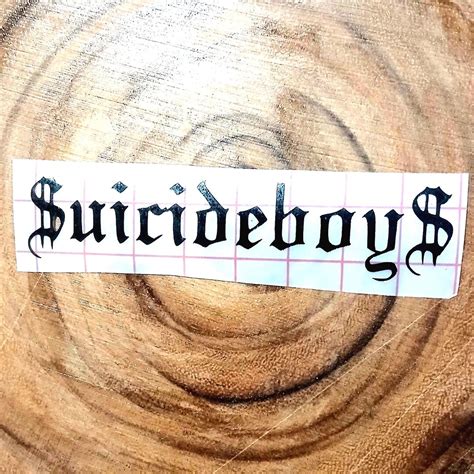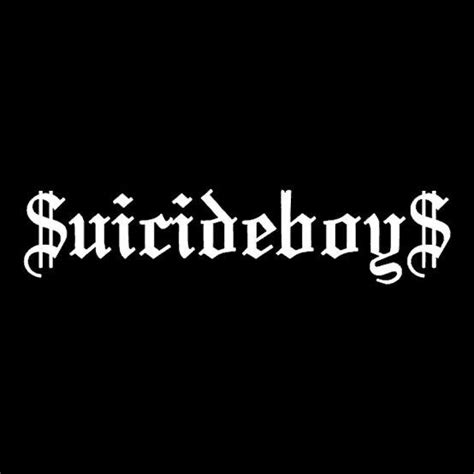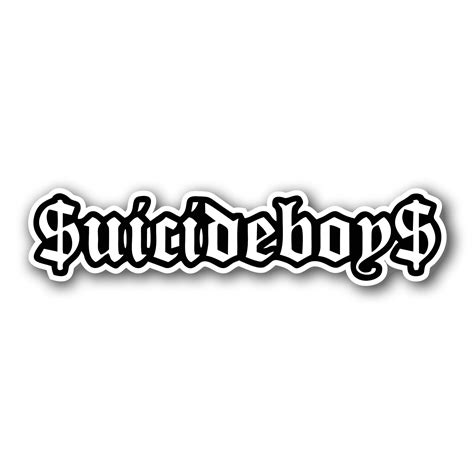
The suicideboys font download is a popular topic among graphic designers, typography enthusiasts, and those seeking to emulate the unique style of the hip-hop duo, Suicideboys. This font, often associated with their distinct and edgy aesthetic, has gained traction in various creative fields. In this introduction, we will explore the concept of downloading and using the Suicideboys font, highlighting its features and the benefits it offers to users.
The Suicideboys font is known for its bold and unconventional design, which has become an iconic representation of their brand. This font is a digital creation, allowing users to access and utilize it for various purposes. By downloading this font, individuals can incorporate its distinctive style into their projects, whether it's for personal expression, graphic design, or even music-related content.
One of the key benefits of the suicideboys font download is the ability to maintain consistency in visual branding. For businesses or individuals aiming to create a cohesive and memorable look, this font can be a powerful tool. Its unique characteristics can help establish a strong visual identity, especially in the realm of hip-hop and urban culture.